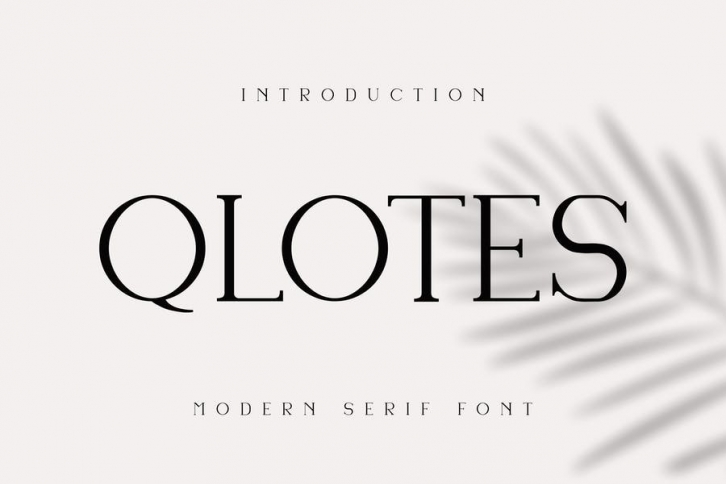
Introducing our new product Qlotes Font - Modern Font
Qlotes Font - Modern Font is a bold and authentic display font. The font is suitable for any branding project like logo, t-shirt printing, esport, and many more. outstanding in a wide range of contexts.